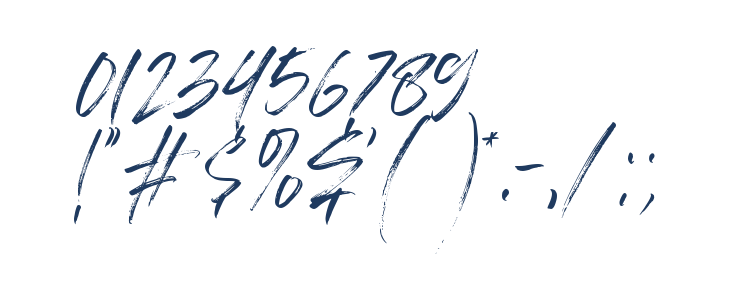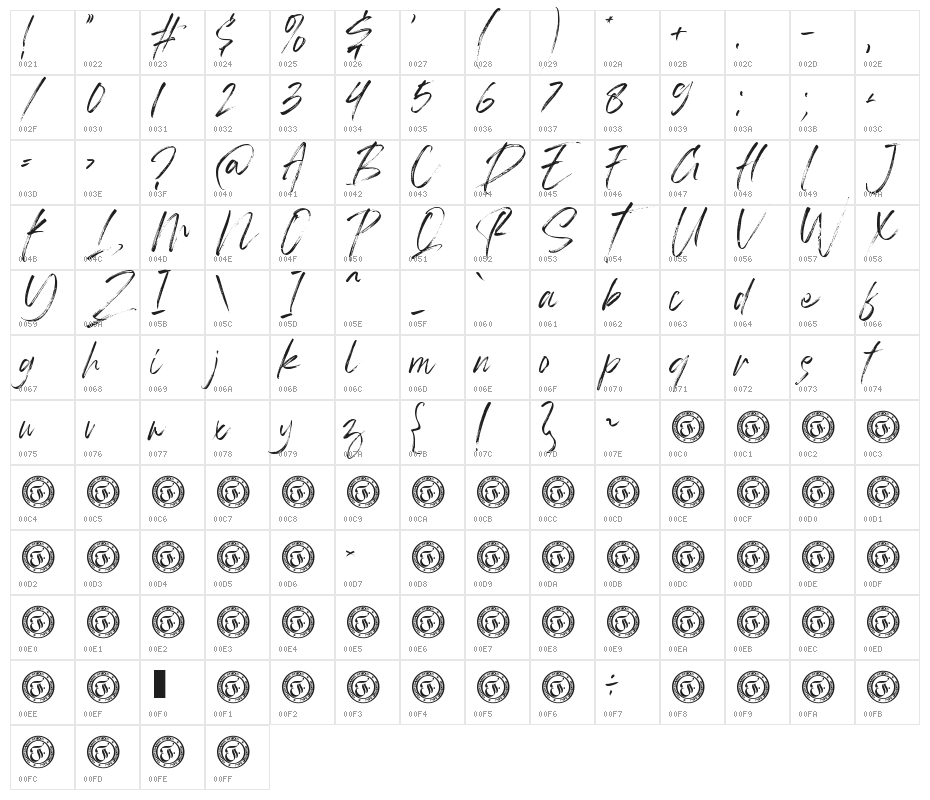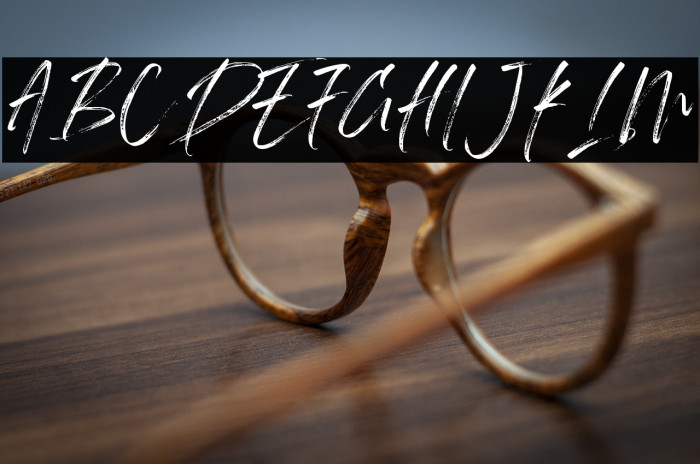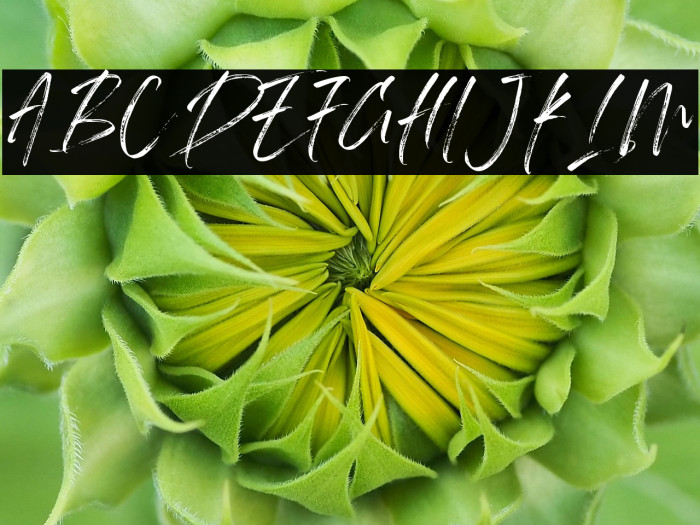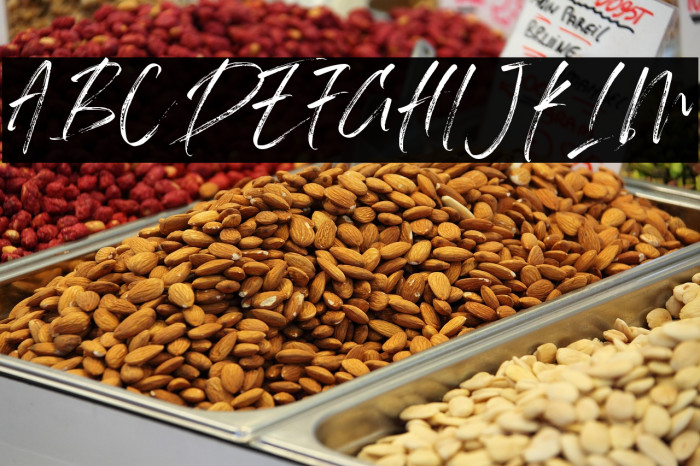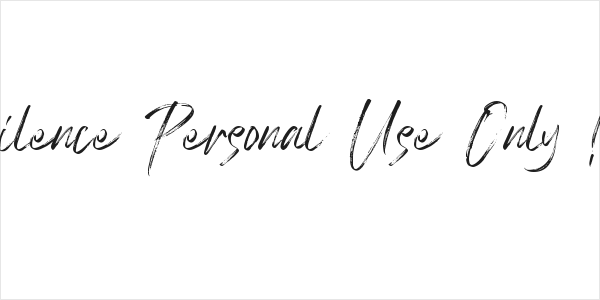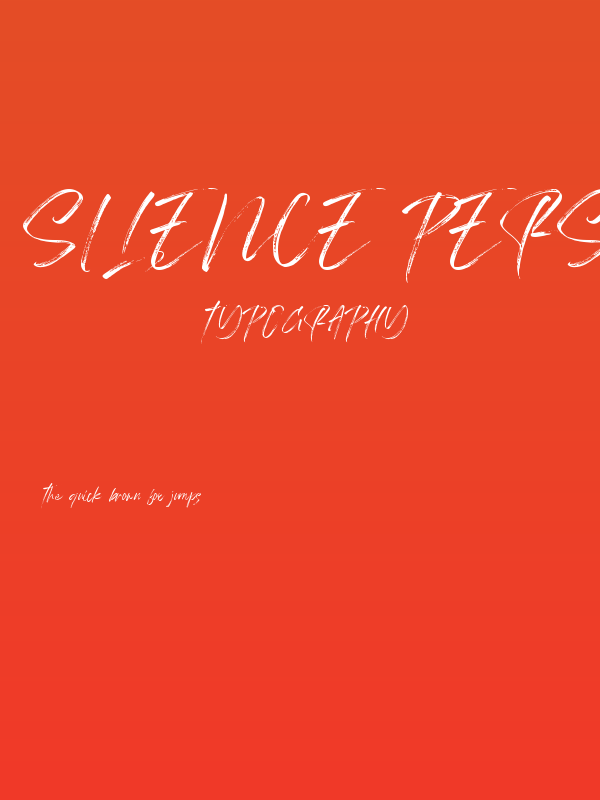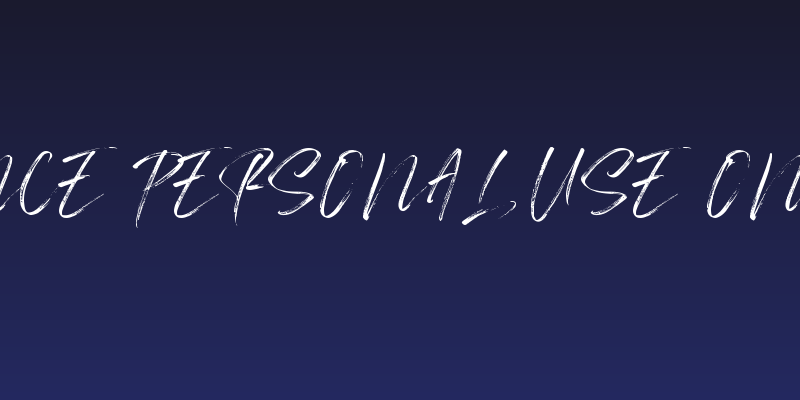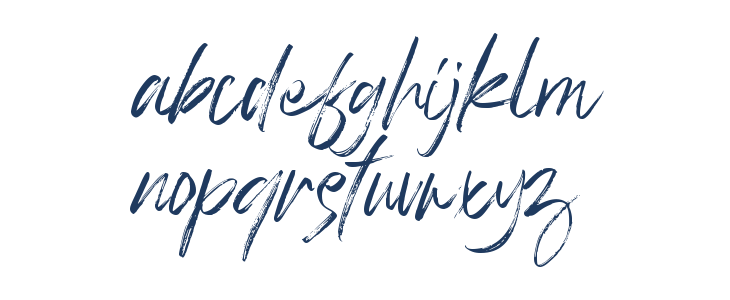
Silence Personal Use Only !!! Font
Silence Personal Use Only !!! Description
This font features a dynamic and expressive handwritten style, characterized by its bold, sweeping strokes and a slightly rough texture that adds a sense of authenticity and energy. The letters are fluid and interconnected, creating a sense of movement and spontaneity. The uppercase and lowercase letters maintain a consistent style, with a noticeable slant that enhances the casual, yet artistic feel. The numerals and special characters are equally expressive, maintaining the overall aesthetic. This font is ideal for projects that require a personal touch or a creative flair.